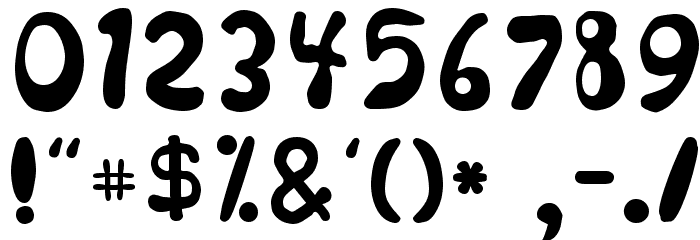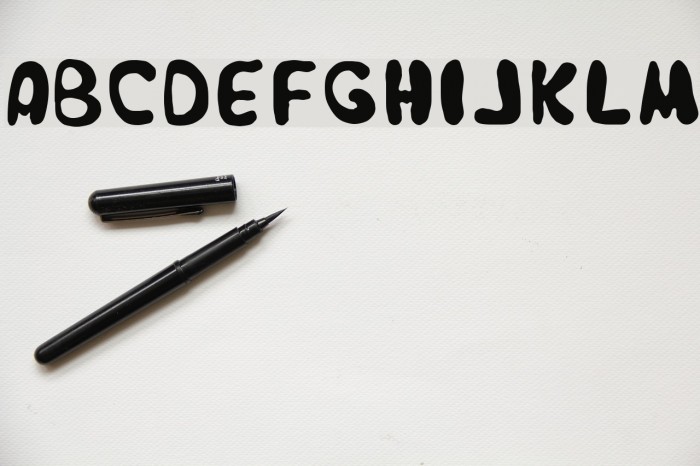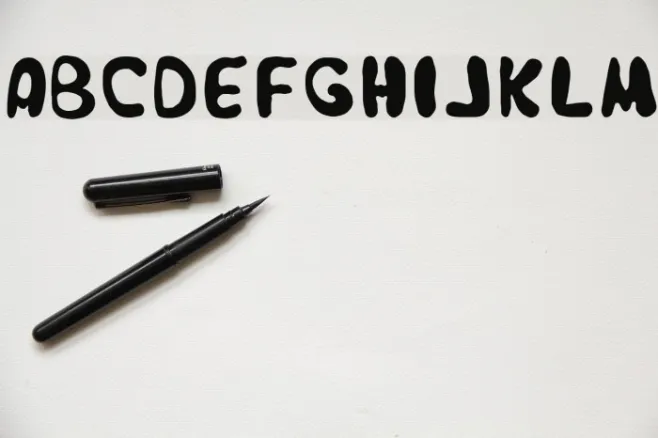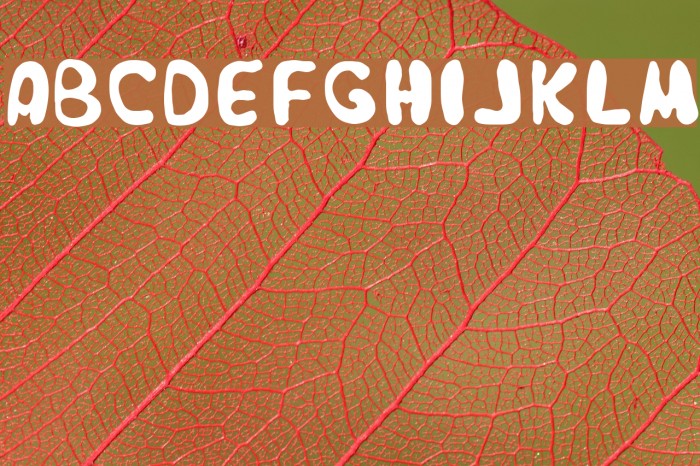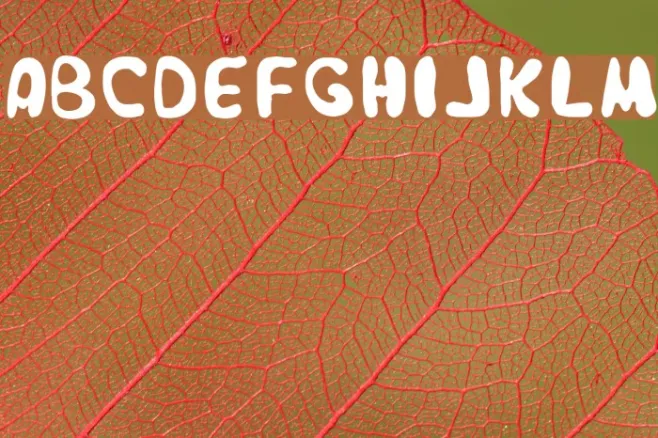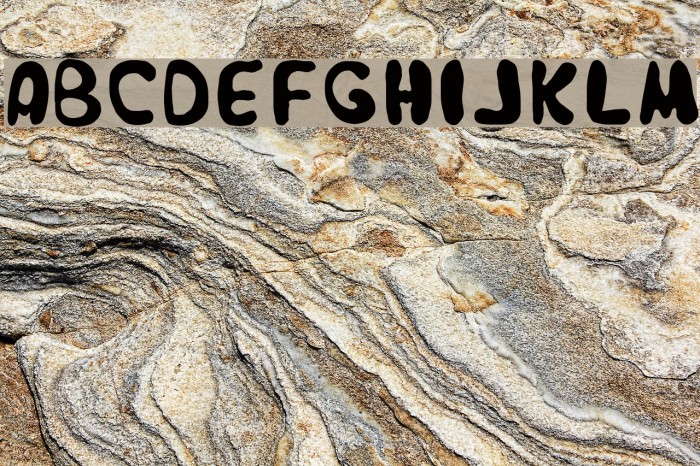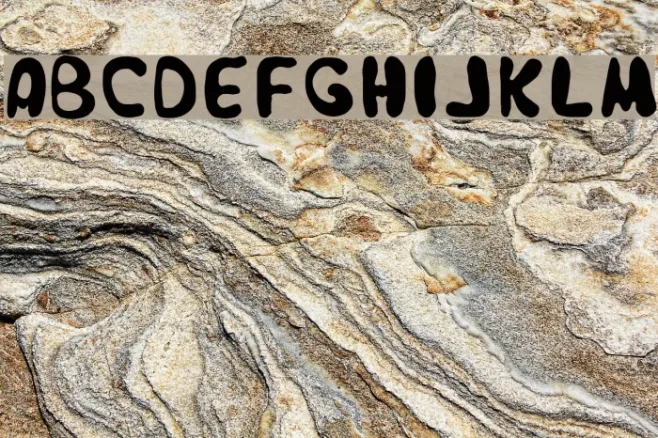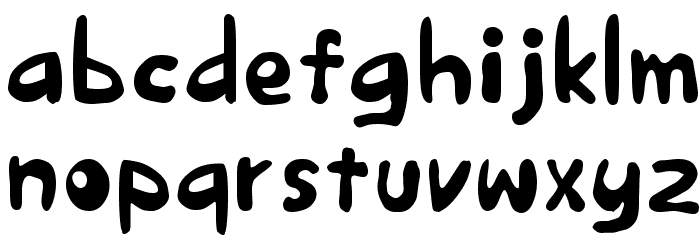
Japestyle Plain Font
Japestyle Plain Description
This playful and bold font features rounded, organic shapes that give it a friendly and approachable appearance. The characters are thick and slightly irregular, adding a whimsical touch to the overall design. The uppercase and lowercase letters maintain a consistent style, with a smooth flow and rounded edges. The numbers and special characters are equally bold and rounded, ensuring a cohesive look across all elements. This font is perfect for projects that require a fun and informal vibe, such as children's books, playful branding, or creative posters.
| Overall Style | Playful, Whimsical |
| Proposed Projects | Ideal for children's books, playful branding, creative posters, and informal designs. |